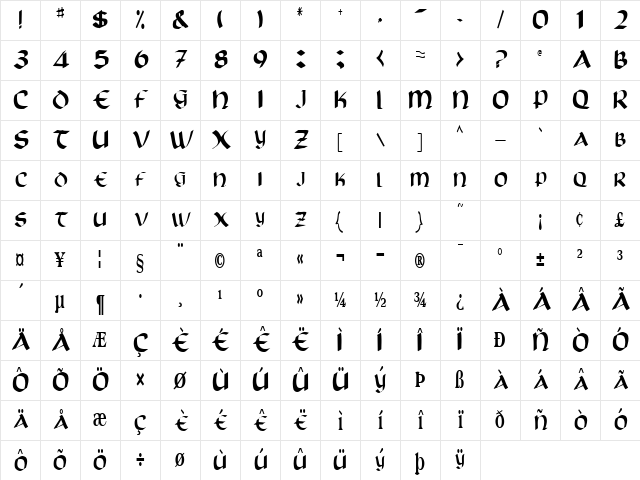
Eagle Regular
Eagle Family
Complete Eagle Regular glyph index. Displaying only characters natively supported by Eagle Regular font.
Design Context for Eagle
Eagle is a composed and adaptable typeface that performs quietly and consistently across a wide range of design contexts.